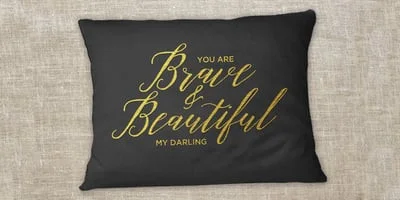
Michaela Script
Michaela Script Font
Michaela Script Font is ideal for elegant design applications including wedding invitations, feminine branding projects, luxury beauty product packaging, boutique signage, romantic stationery, high-end fashion labels, sophisticated event materials, and personal branding for creative professionals. This graceful script typeface brings handwritten elegance and feminine sophistication to projects that celebrate beauty and personal touch.
What makes Michaela Script Font exciting is its exquisite representation of feminine elegance through flowing letterforms that capture the grace and sophistication of fine calligraphy and personal handwriting. The font features delicate curves and elegant flourishes that mirror the artistry of traditional penmanship while maintaining contemporary appeal. Its feminine character appeals to audiences who appreciate handcrafted beauty, personal expression, and sophisticated design aesthetics.
The Michaela Script Font family includes various elegant styles such as Regular, Bold, and decorative alternates with ornamental swashes and contextual ligatures that enhance the feminine aesthetic. These sophisticated options provide comprehensive design solutions for creating authentic feminine brand identities that celebrate elegance and personal style.
This distinguished script typeface brings genuine handwritten authenticity to contemporary design projects. Wedding professionals and feminine lifestyle brands choose Michaela Script Font for its exceptional ability to communicate elegance and personal sophistication. The font's calligraphic inspiration makes it perfect for bridal services, beauty brands, and creative professionals who want to convey handcrafted quality and feminine elegance. Its graceful character ensures memorable brand recognition while maintaining the sophisticated aesthetic that defines exceptional feminine design work.